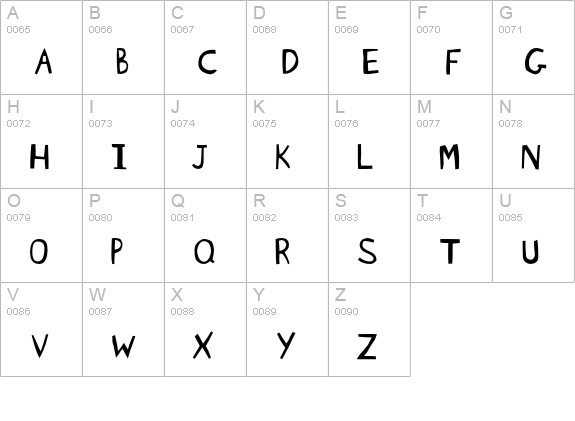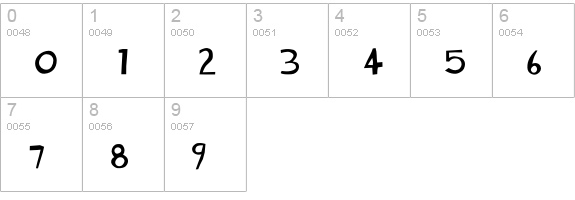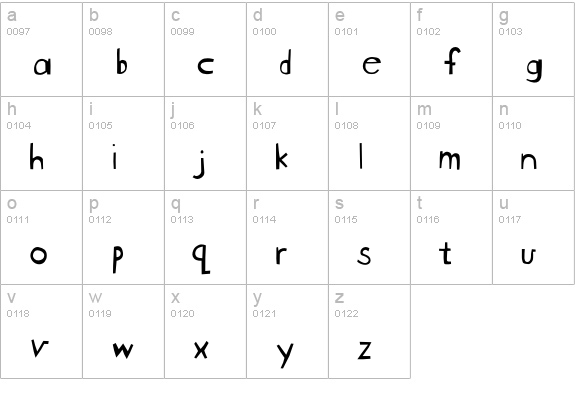
BlockheadUnplugged Font Details
Introducing BlockheadUnplugged font, a bold and playful typeface designed to make a statement in your designs. With its unique style and quirky charm, BlockheadUnplugged is perfect for adding a touch of fun and creativity to any project. This font is ideal for headlines, posters, logos, and more, where you want to grab attention and stand out from the crowd. Its distinctive blocky shapes and irregular letterforms give it a handcrafted feel that adds character and personality to your designs. And the best part? BlockheadUnplugged is completely free to download at FontsMarket.com. That's right, you can enjoy this eye-catching font at no cost, making it accessible to designers and creatives of all levels. So why wait? Download BlockheadUnplugged today and unleash your creativity with this exciting and versatile typeface.